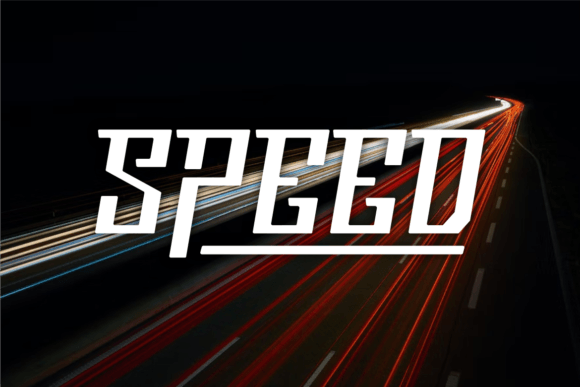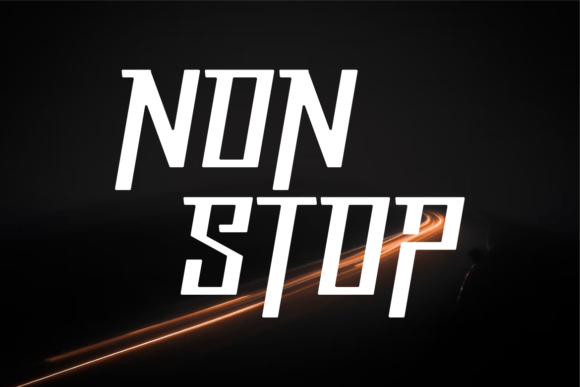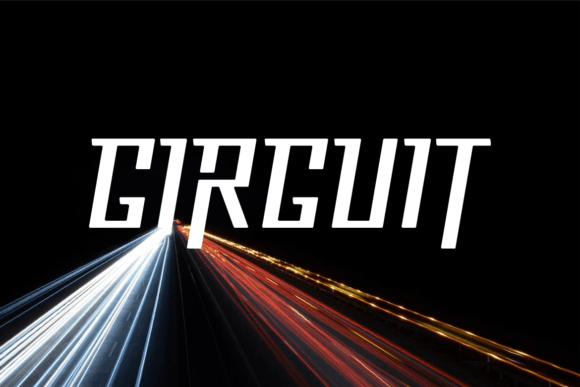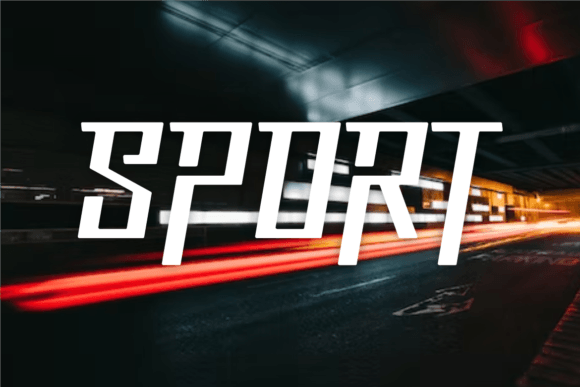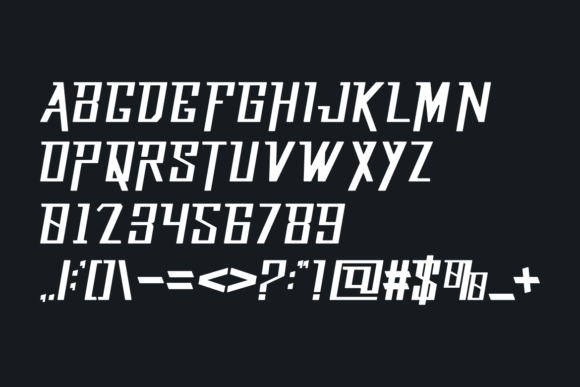
Bilgas: A Modern and Sporty Slab Serif Font
Bilgas is a modern slab serif font that combines unique, sporty, and cool design elements. This versatile typeface is perfect for various projects, from signatures and stationery to branding and packaging design.
Key Features of Bilgas
- Modern Design: Offers contemporary appeal with bold elements[2].
- Sporty Style: Brings dynamic character to designs.
- Cool Appeal: Features distinctive letterforms.
- Versatile Application: Adapts well to numerous design contexts.
Best Uses for Bilgas
Thanks to its versatile characteristics, Bilgas works especially well for:
- Elegant signatures
- Professional stationery
- Distinctive logos
- Wedding materials
- Typography quotes
- Magazine and book covers
- Website headers
When using Bilgas in your designs, keep these tips in mind:
- Try it for headlines or display text to showcase its sporty style[4].
- Use different sizes to highlight its modern features.
- Pair with simpler fonts for body text to create balance[2].
- Let its versatility enhance both traditional and contemporary projects.
To sum up, Bilgas is an excellent choice for designers seeking a modern and sporty slab serif font. Its versatility makes it perfect for a wide range of projects. Whether you’re creating wedding materials, designing logos, or developing branding packages, Bilgas offers the perfect blend of contemporary style and cool sophistication.
Furthermore, Bilgas’s distinctive design allows it to shine in contexts where both sportiness and modernity are key. For instance, from stationery to website headers, this font can elevate your projects with its dynamic style. Also, its modern yet cool appearance works particularly well in designs that aim to make a sophisticated impact.
In conclusion, Bilgas truly captures the essence of modern sport in slab serif typography. Its versatility across different applications shows how well it can serve various creative needs. Therefore, for those wanting to add a touch of sporty sophistication to their work, Bilgas can enhance any design with its unique style. Ultimately, it’s perfect for designers aiming to make a cool, modern impact across a wide range of creative projects.